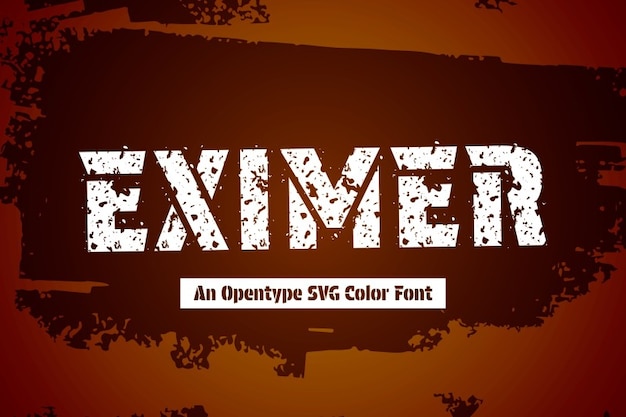
"Eximer" font encapsulates a gritty, raw essence with its jagged lines and irregular shapes, reminiscent of soil's texture. It mirrors the rugged imperfections of nature, embodying a sense of dirtiness and rawness. The letters seem to emerge from the earth, adorned with organic holes akin to burrowing creatures or erosion marks. "Eximer" evokes an elemental connection, offering a typographic landscape that reflects the untamed beauty found in the soil's depths.